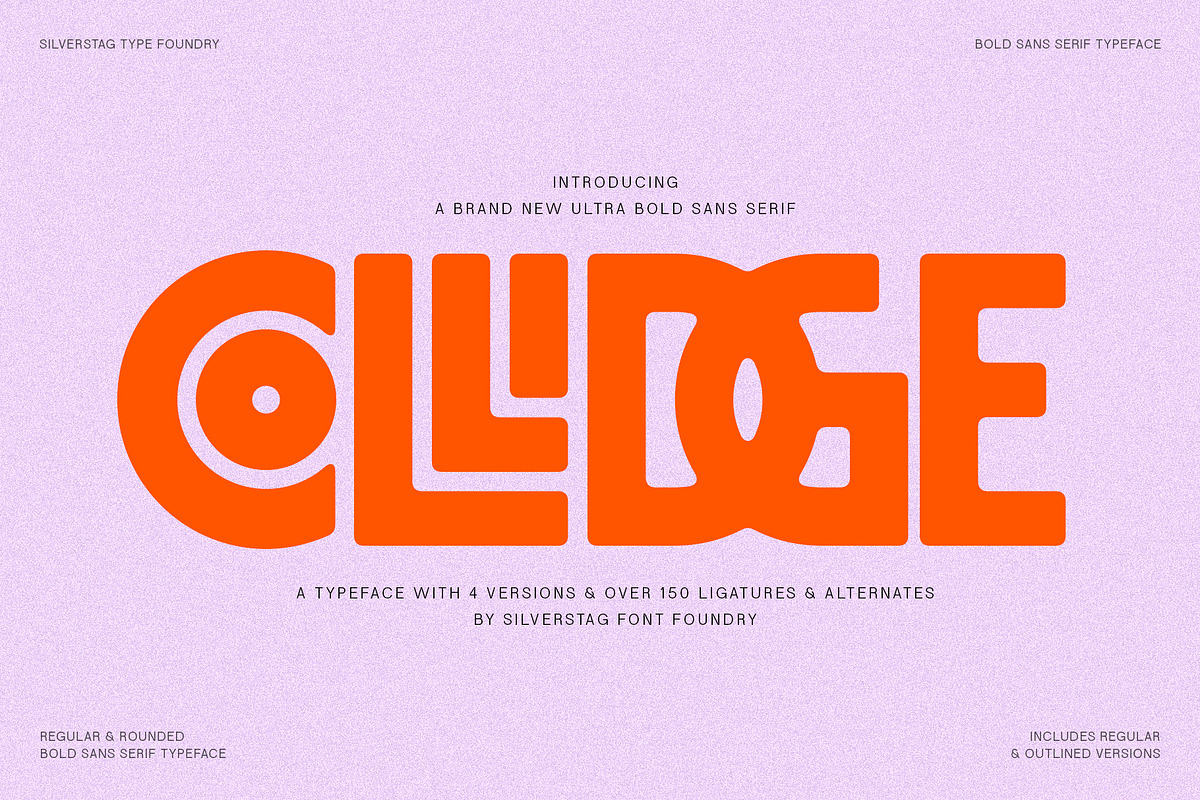
Designers, it’s time to turn up the volume. Meet Collidge—a powerhouse typeface built for impact, boldness, and creative fearlessness. Crafted with precision and passion, this isn’t just another font. It’s a design weapon engineered to dominate headlines, elevate branding, and deliver undeniable visual weight. Whether you’re building a futuristic identity or crafting a streetwear label, Collidge ensures your words don’t just appear — they command attention.
Boldness Isn’t Just a Feature—It’s the Foundation
Collidge redefines what “bold” means. Its chunky, high-contrast strokes and razor-sharp angles create an urban, commanding aesthetic that cuts through noise. Every letter feels intentional, muscular, and full of momentum. This isn’t subtlety—it’s confidence. It thrives in minimalist layouts where it becomes the sole focal point, and it explodes in dynamic compositions where its energy fuels the entire visual rhythm.
With a weight that doesn’t compromise readability, Collidge delivers maximum presence without sacrificing clarity. Whether used at 100pt or 10pt, it holds its power. It’s the font for logos that stand the test of time, headlines that stop scrolls, and visuals that refuse to be ignored.
Four Dynamic Styles for Unlimited Creative Freedom
One font, four unstoppable variations—Collidge gives you the flexibility to adapt to any project:
- Regular: The foundation. Clean, powerful, and ready for instant impact.
- Regular Outlined: A bolder silhouette with a sharp outline, perfect for high-contrast designs and logos.
- Rounded: Smooth, modern curves with the same strength—ideal for tech brands, youthful aesthetics, and digital-first projects.
- Rounded Outlined: The ultimate fusion of weight and style—ideal for striking billboards, posters, and brand collaterals.
Swap between styles seamlessly and watch your designs evolve in real time. No more settling for one look. Collidge gives you four distinct personalities in one package.
150+ Ligatures & Alternates: Where Creativity Meets Efficiency
Beyond its visual power, Collidge is packed with over 150+ custom ligatures and stylistic alternates, offering endless opportunities to customize and elevate your work. From dynamic word connections to unique character substitutions, you’re not just typing—you’re designing.
Use ligatures to create flowing, fluid text that feels hand-crafted. Swap in alternates to break patterns, add surprise, or reinforce brand identity. Whether it’s a quirky “f” or a sleek “th” combination, these hidden details make your project feel uniquely yours.
Designed for the Future of Design
Collidge isn’t built for yesterday. It’s engineered for tomorrow’s branding, digital experiences, and visual movements. Its modern edge makes it perfect for:
- Branding & Identity Systems: Create bold, memorable logos and taglines that define your brand.
- Event Posters & Campaigns: Make posters that dominate streets and social feeds.
- Social Media Graphics: Stand out in algorithm-heavy feeds with text that demands a double-take.
- Music, Fashion & Streetwear Labels: Match the raw energy of urban culture with a font that speaks the same language.
- Web & App UI: Use it for CTAs, navigation labels, and hero sections where impact matters.
Step Into the Spotlight with Collidge
This is more than typography. This is a mindset. Collidge doesn’t whisper — it speaks with a voice that echoes. If you’re tired of safe, generic fonts that fade into the background, it’s time to embrace boldness.